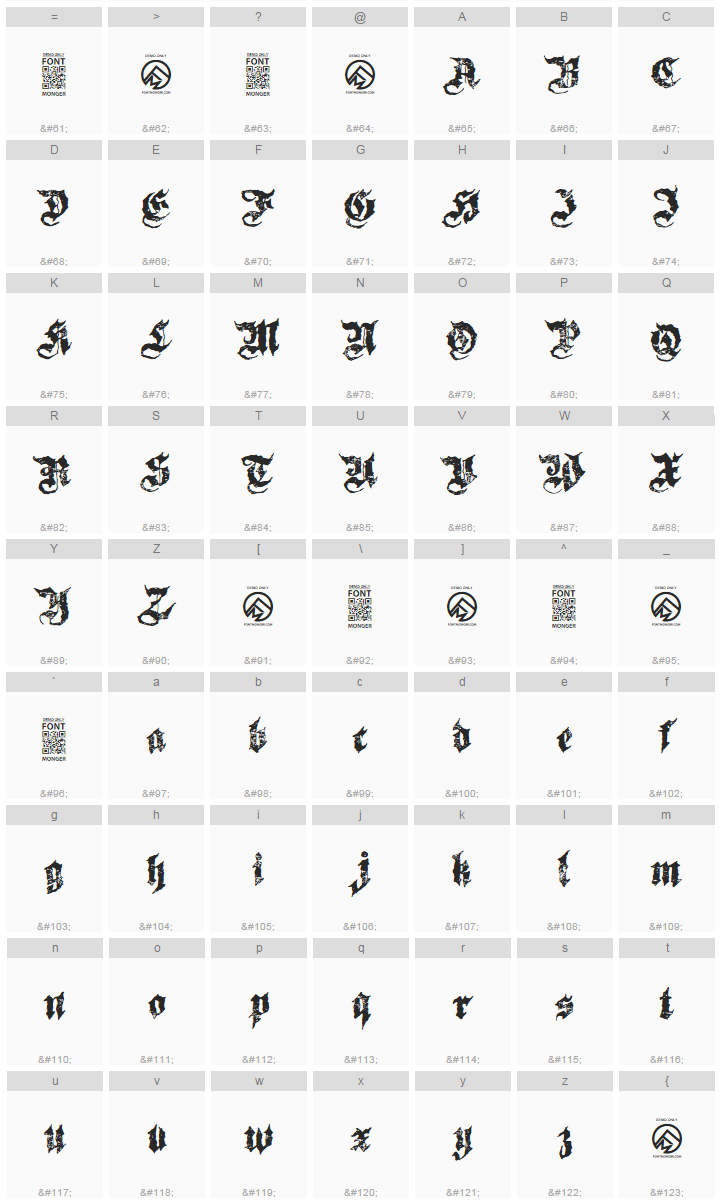
Sovereign font was designed traditional with pencil, paper, and a black marker. It has upper and lowercase letters. It has very limited punctuation. No accents, symbols or numbers. I did design the letters, but I am debating if I want to add them or not. If you would like to see font concepts in the making, follow my instagram (http://www.instagram.com/chris_vile)